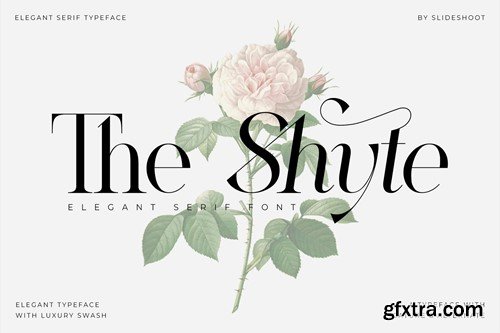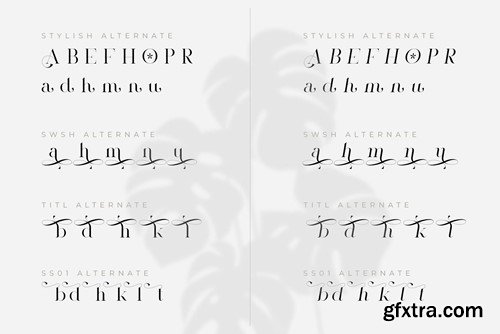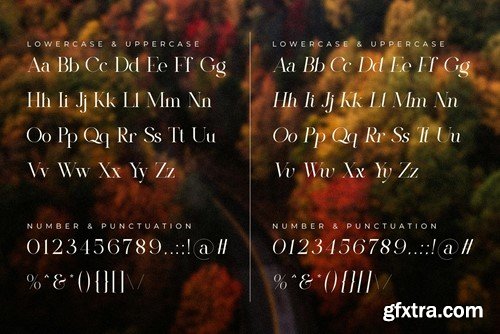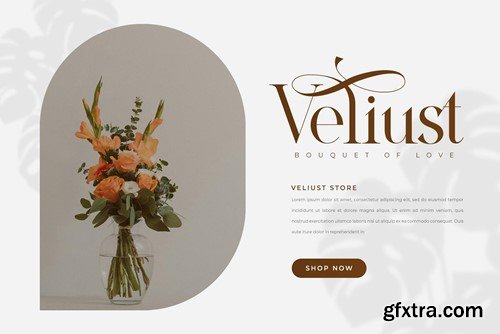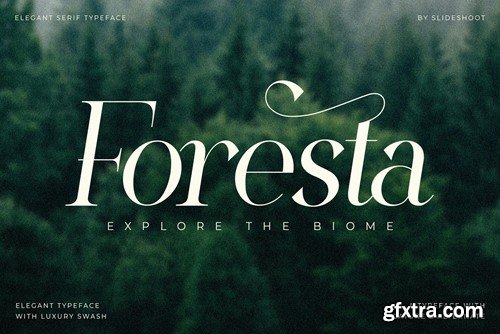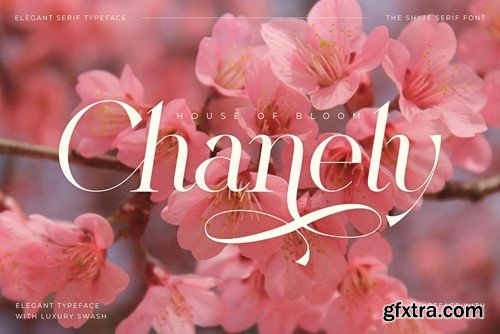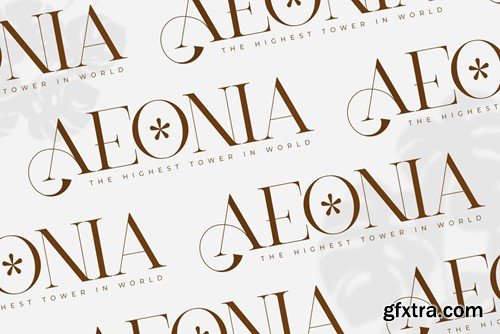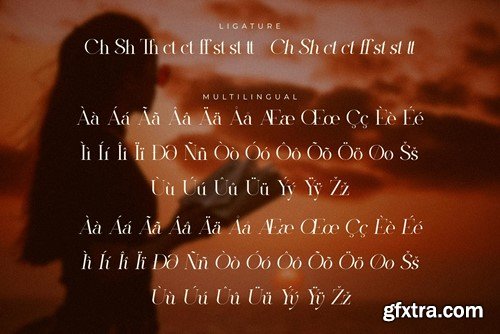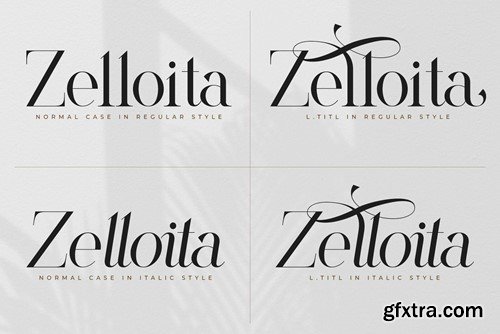
The Shyte Serif is a balanced, smooth, elegant and stylish serif font. This typeface has two main styles, Regular and Italic, which are designed to work elegantly in unison and separately.It has a beautiful character. Very suitable to be combined with invitation card designs, company logos, film titles, film names, business cards, book titles, brand names and various other designs. Shyte Serif is a smooth serif font that exudes sophistication and elegance. Its stylish alternation and binding make this font the perfect partner for any project. He has a beautiful character. Very suitable to be combined with invitation card designs, company logos, film titles, film names, business cards, book titles, brand names and various other designs. Shyte Serif is a smooth serif font that exudes sophistication and elegance. Its stylish alternation and binding make this font the perfect partner for any project. FEATURE : Hope you like it. Thank you.